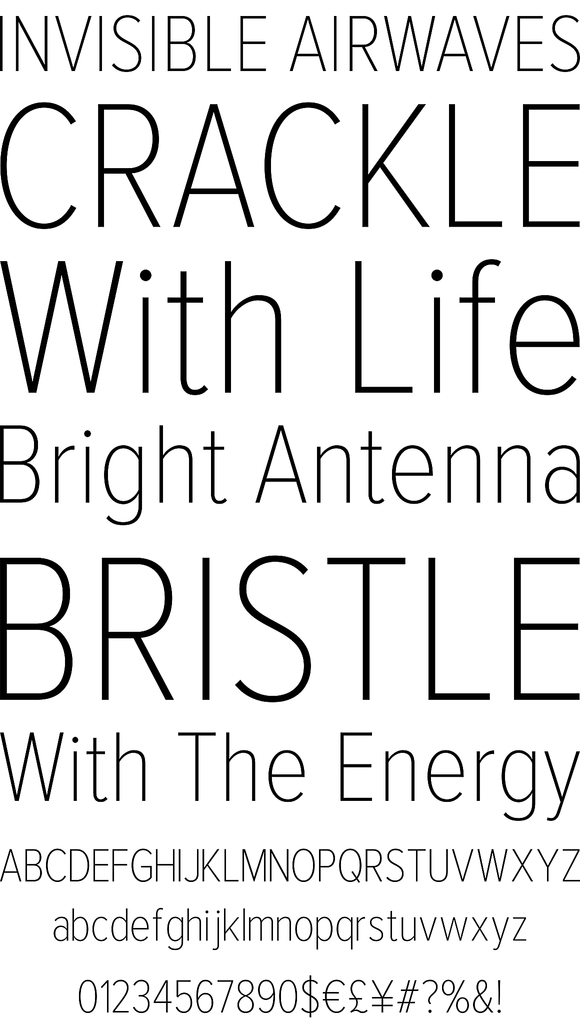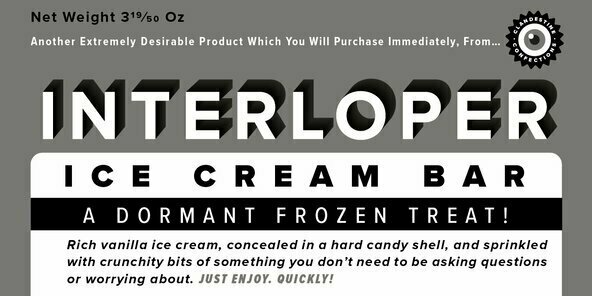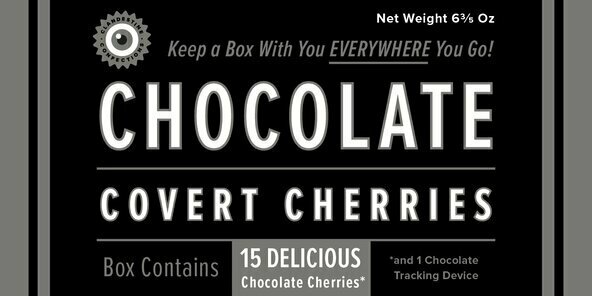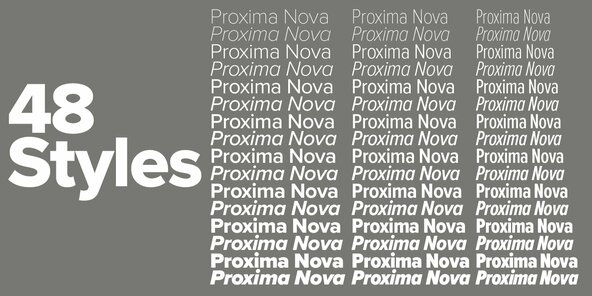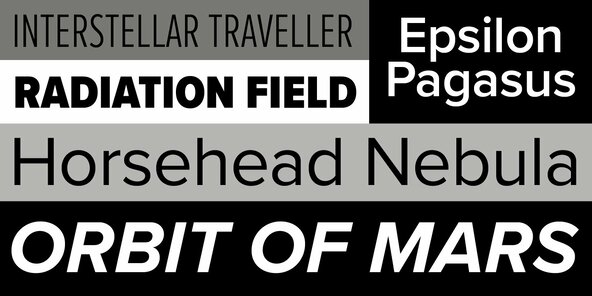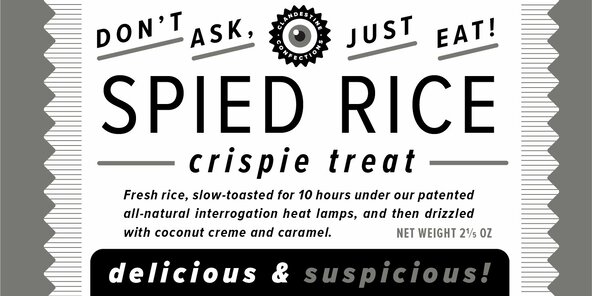
Proxima Nova and Alternatives: A Selection of Modern, Corporate Fonts: Introducing our curated collection inspired by the genius of Mark Simonson's Proxima Nova. These fonts reflect the sleek geometry of Proxima Nova, the modern simplicity of Futura, and design nuances reminiscent of Gotham font and the Franklin Gothic typeface. They serve as practical solution...